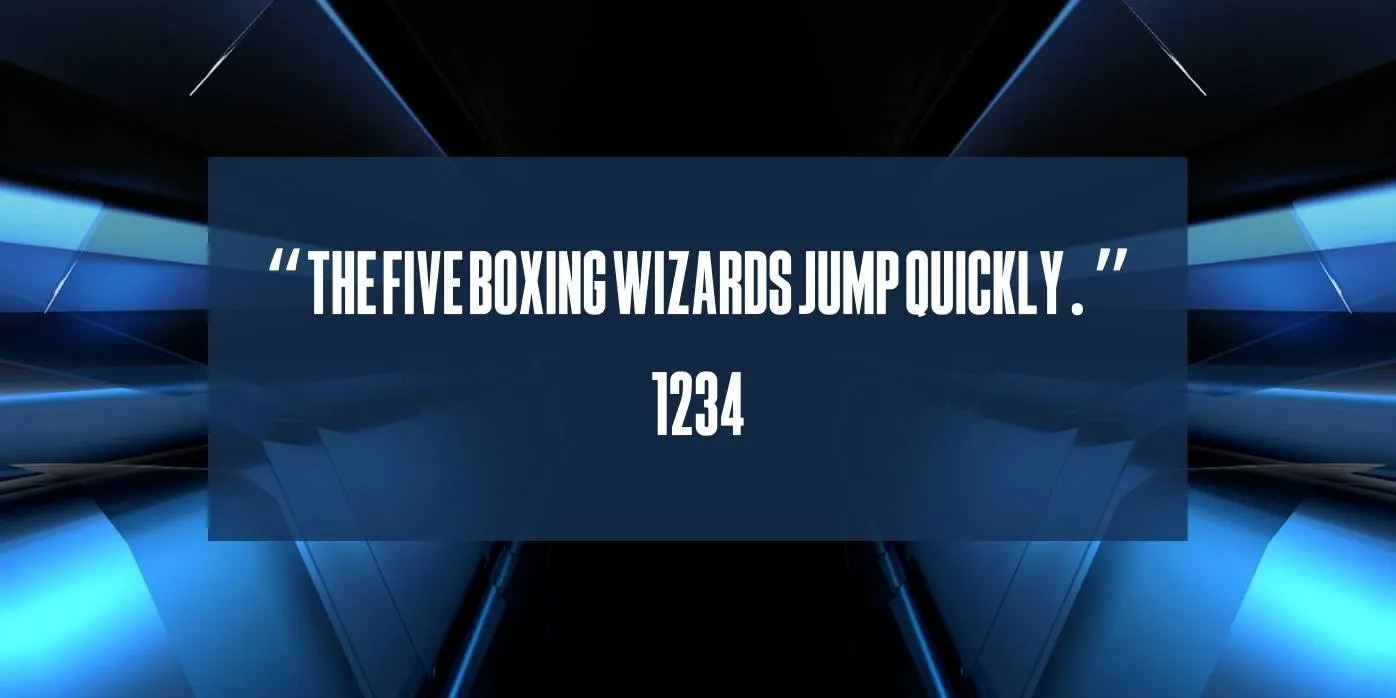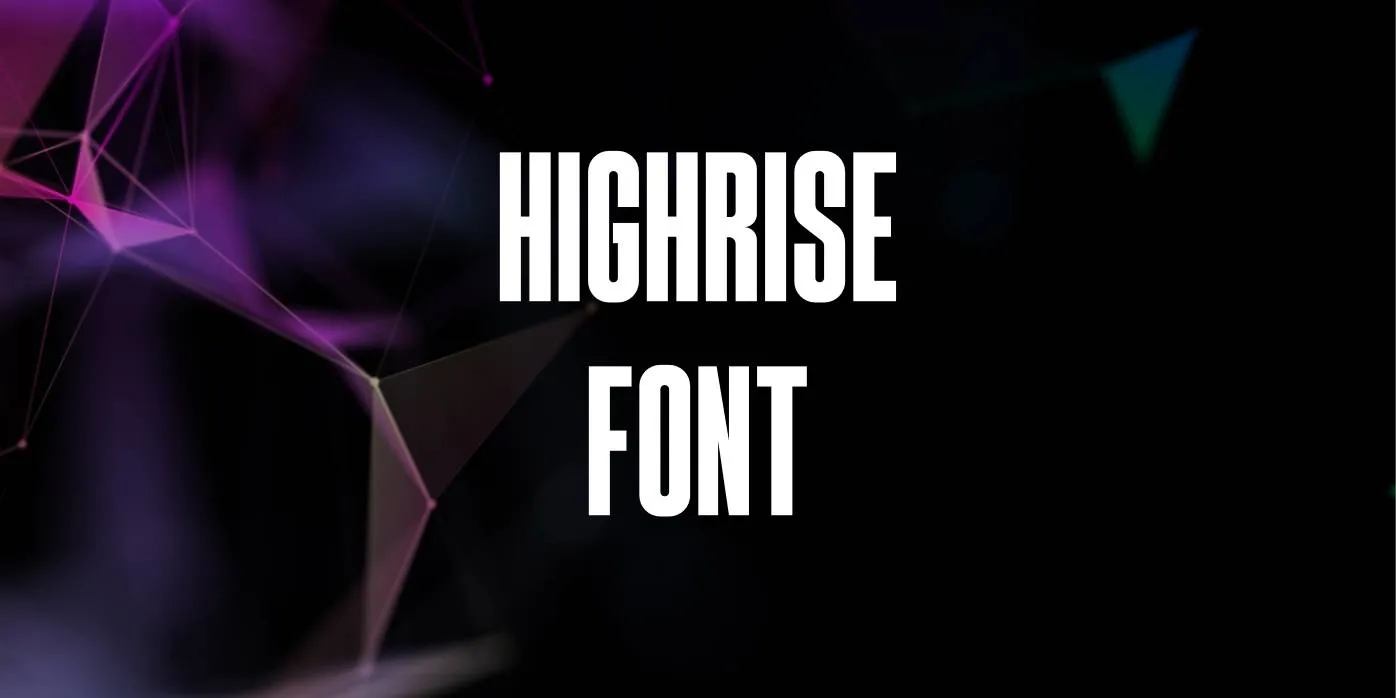
Highrise Font
Highrise Font is a display font that was created by Indieground Team. This font is perfect for headlines, titles, and logos. This stylish font is available in both regular and bold weights. Highrise Font was designed with clean lines and sharp angles.
The font’s simple yet modern design makes it perfect for any project that needs a touch of elegance. This Font’s unique character shapes make it great for headlines and titles. When used in logos, the font can help create a strong and unforgettable brand identity. The copy and paste function of this typeface is perfect for many text designs.
You can also use supreme font which is closest to this font family. Highrise Font is available in both regular and bold weights. The bold weight is perfect for making headlines stand out. The regular weight can be used for body text, titles, or even logos.